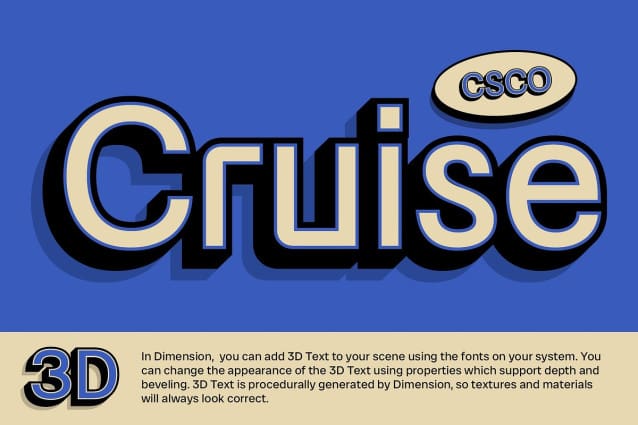
CS Cruise 3D Font
CS Cruise 3D Font is a retro 3D display font based on the CS Sans Serif font. Perfect for evoking nostalgia and uniqueness, this font adds a distinct and unique look to various design projects.
Ideal for Eye-catching Displays Designed to make an impact, CS Cruise 3D is perfect for headlines, banners, and other display purposes. Its retro 3D form ensures that your message is both seen and remembered.
Versatile and Distinctive Despite its retro look, this font is versatile and distinctive. Its 3D form makes it suitable for a wide range of projects, from branding to digital designs, where a font with character and charm is essential for making a statement.
Perfect for Adding a Unique Touch CS Cruise 3D is ideal for projects that require a font with a unique touch. Whether you’re designing a poster, logo, or website, this font will undoubtedly add a distinct and memorable element to your designs.